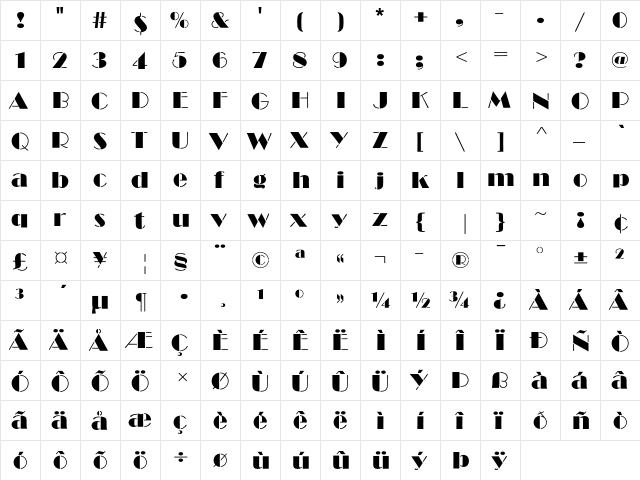
Broadway D OT Stencil Regular Font Preview
Broadway D OT Stencil Regular
Broadway D OT Stencil Regular Font Details
Design Context for Broadway D OT Typeface
Broadway D OT borrows the utilitarian aesthetic of stencil lettering, with its characteristic cutaways and no-frills construction lending an industrial edge.
A strong choice for packaging that needs edge, warehouse aesthetics, and rough-and-ready visual identities.